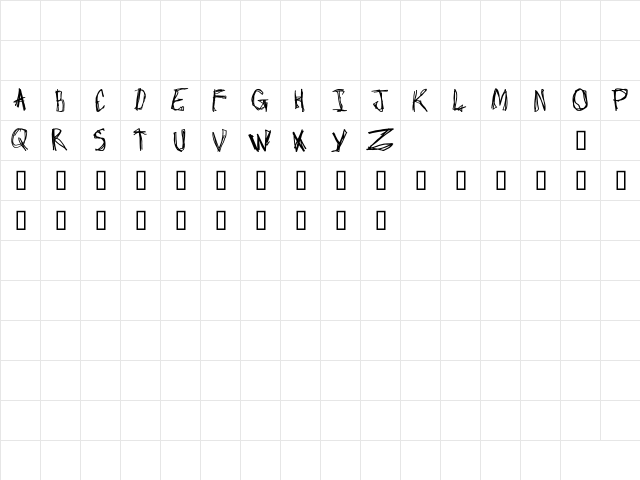
Craptacular Regular Font Preview
Craptacular Regular
Craptacular Regular Font Details
Design Context for Craptacular Typeface
Craptacular is a composed and adaptable typeface that performs quietly and consistently across a wide range of design contexts.